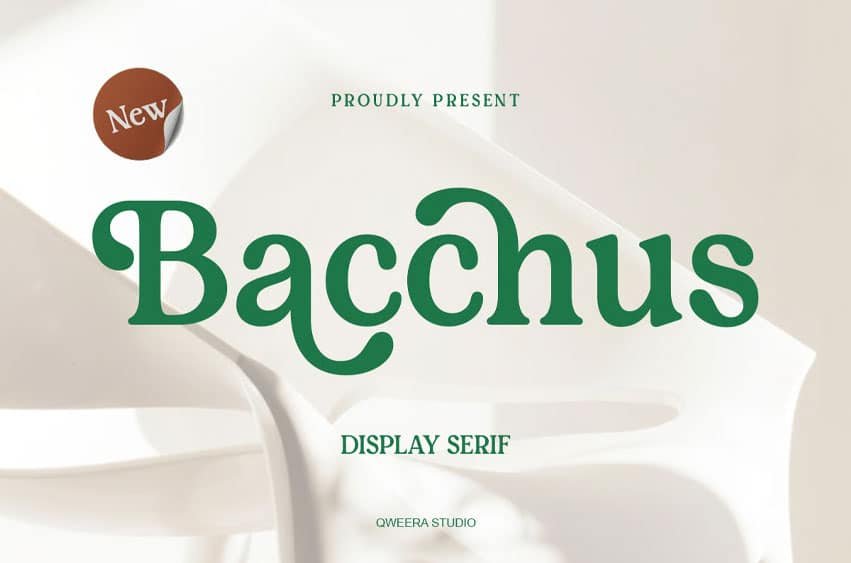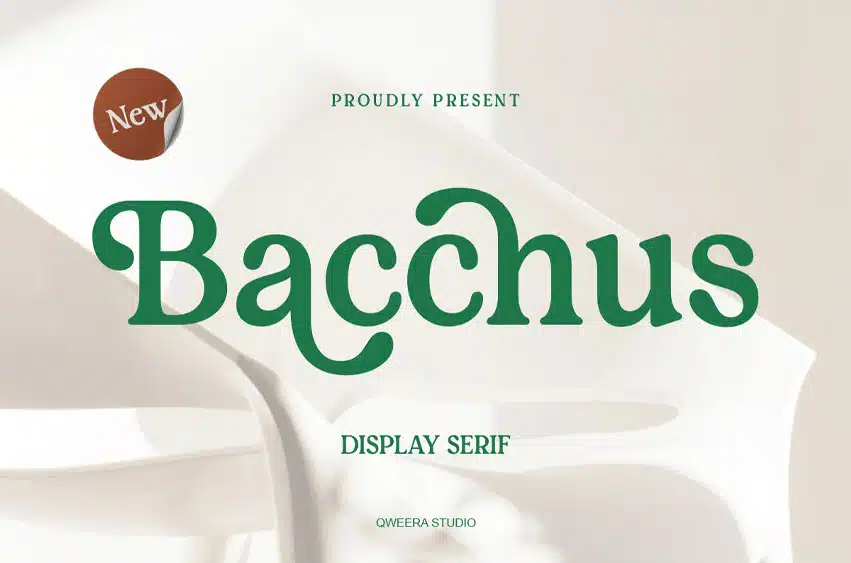
Bacchus Font is a retro display serif font crafted for cafe branding, boutique logos, retail graphics, lifestyle packaging, and cheerful visual identity projects. With its bold serif structure, rounded curves, playful alternates, and friendly display character, Bacchus brings a fresh, nostalgic, and memorable presence to modern design layouts.
Its expressive style works beautifully for coffee shop logos, boutique storefronts, shopping campaigns, product packaging, posters, social media graphics, lifestyle labels, and creative brand presentations. Bacchus includes uppercase and lowercase characters, stylish alternates, ligatures, multilingual support, professional kerning, Regular and Italic styles, plus OTF, TTF, WOFF, and WOFF2 formats for polished print and digital use.
Bring playful retro charm, fresh visual energy, and bold serif personality into your next branding, packaging, or poster design with Bacchus.
• Retro display serif style
• Complete uppercase and lowercase characters
• Stylish alternates and ligatures
• Multilingual character support
• Professional kerning for polished typography
• Regular and Italic font styles
• Playful rounded look for cafe, boutique, retail, and lifestyle branding